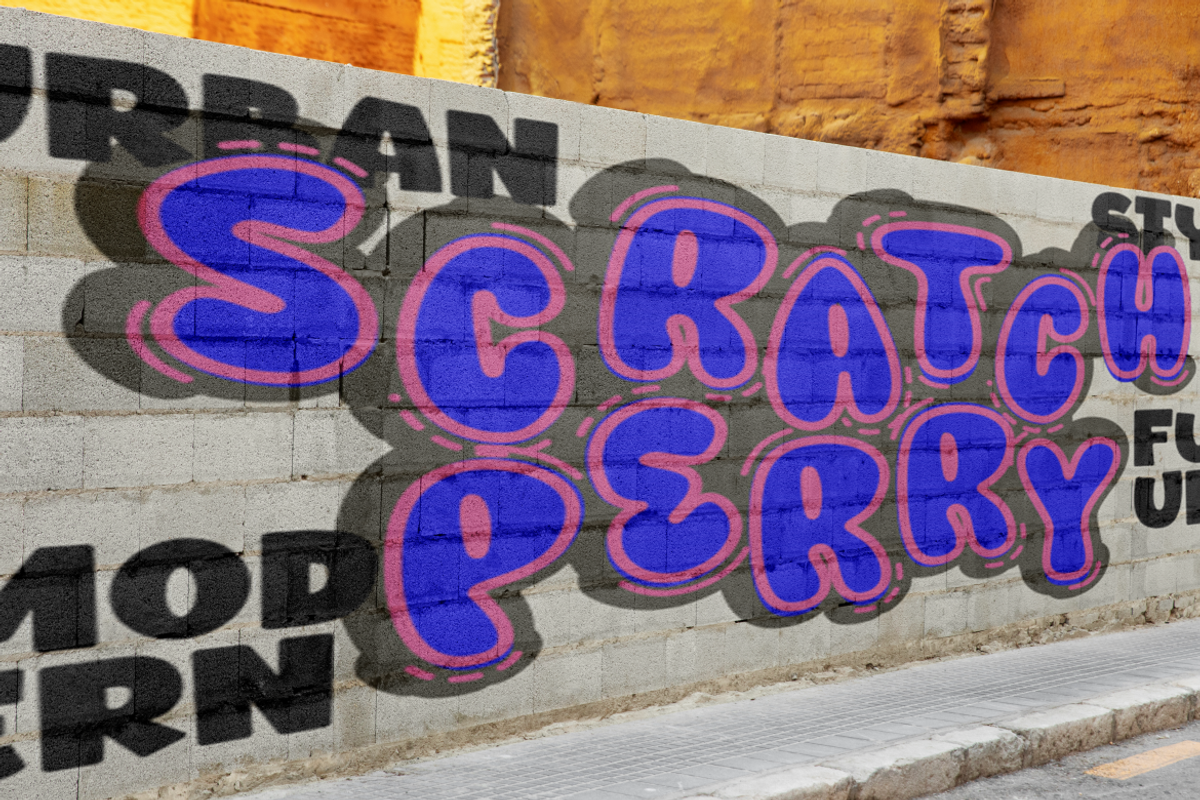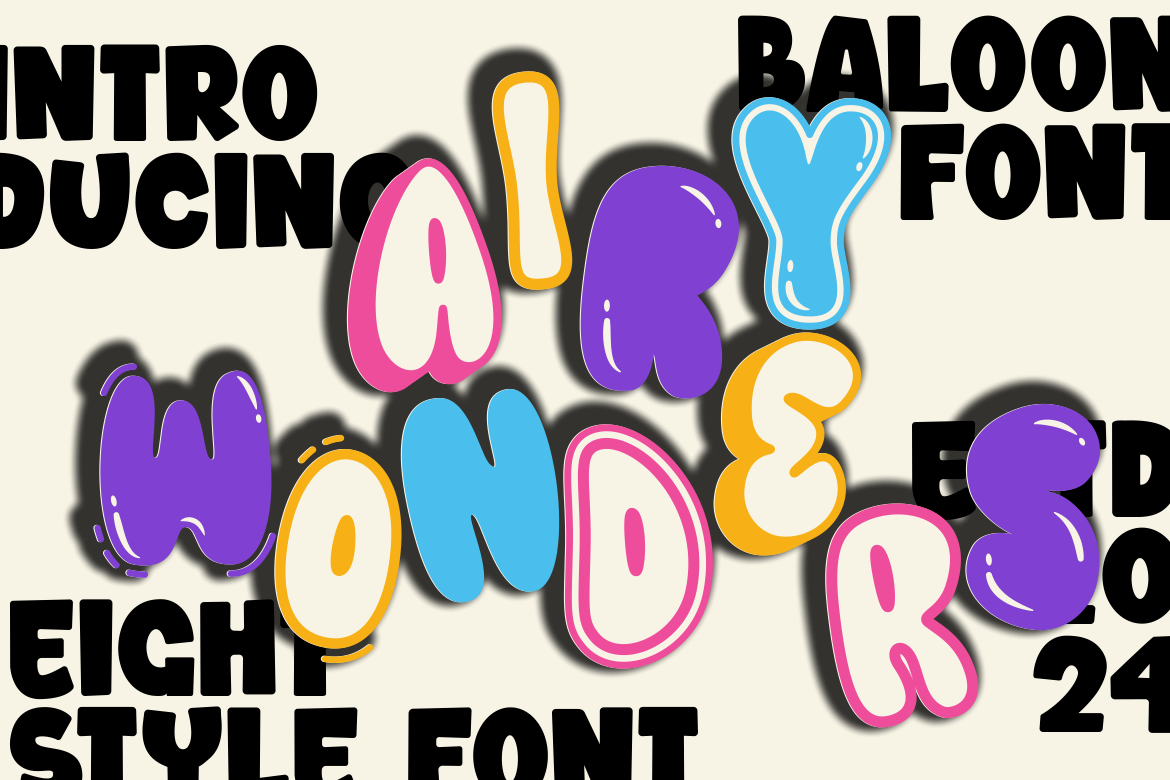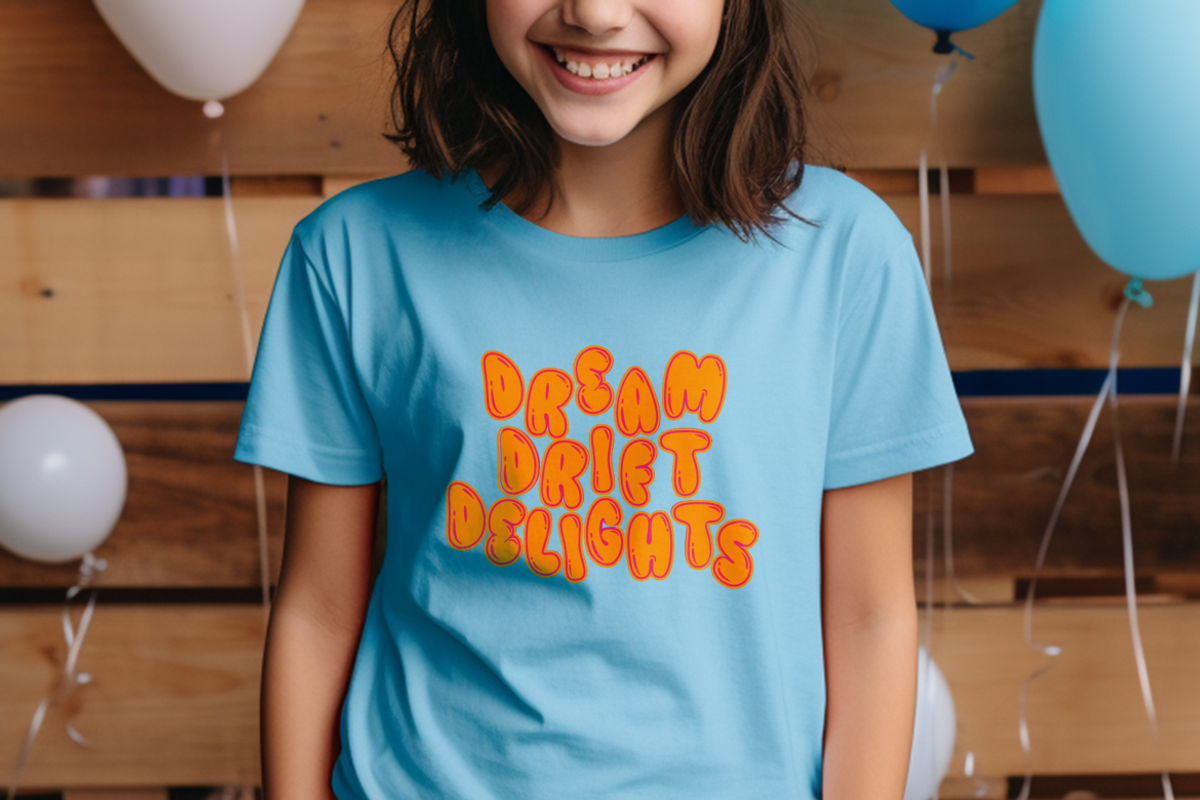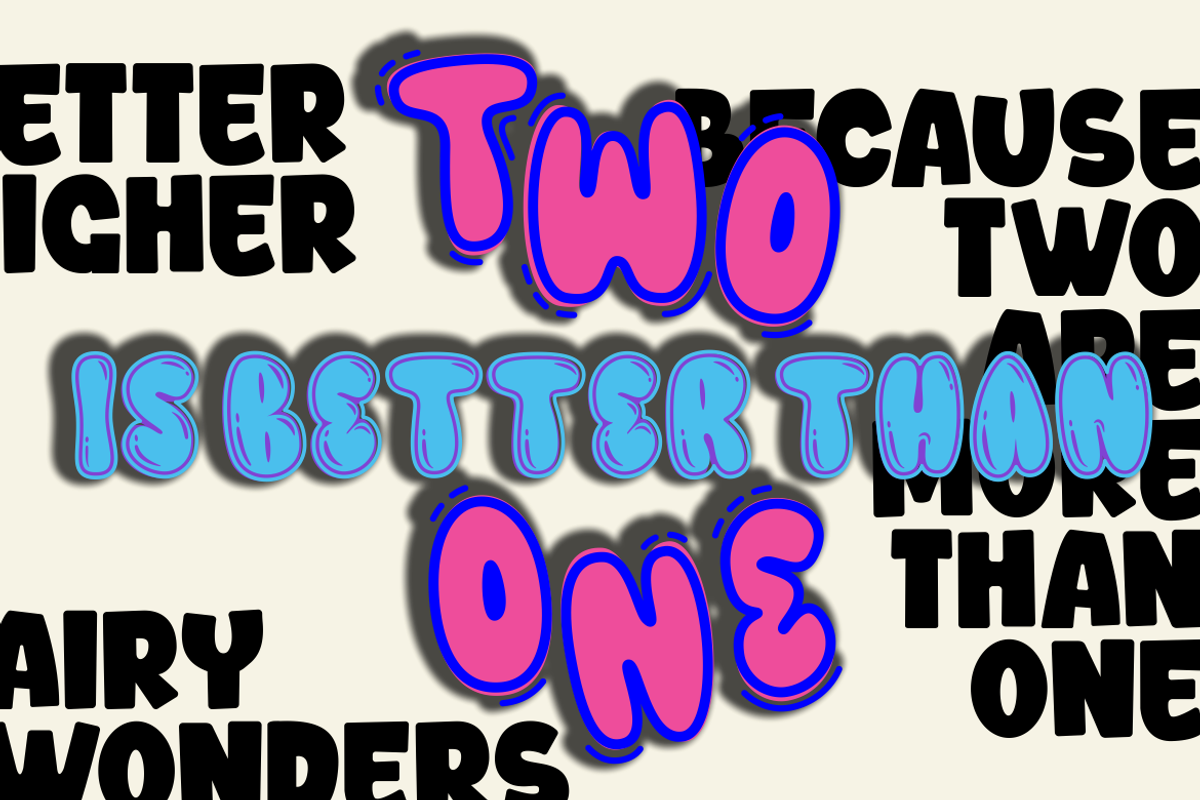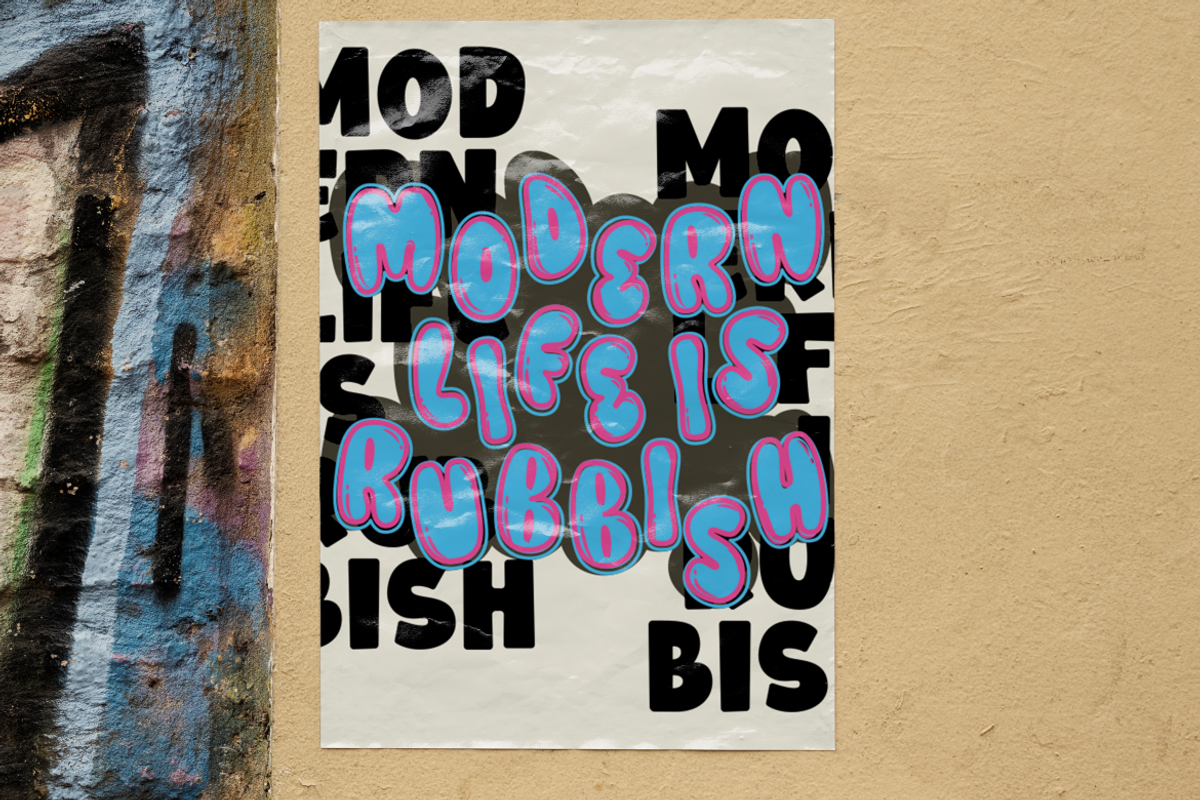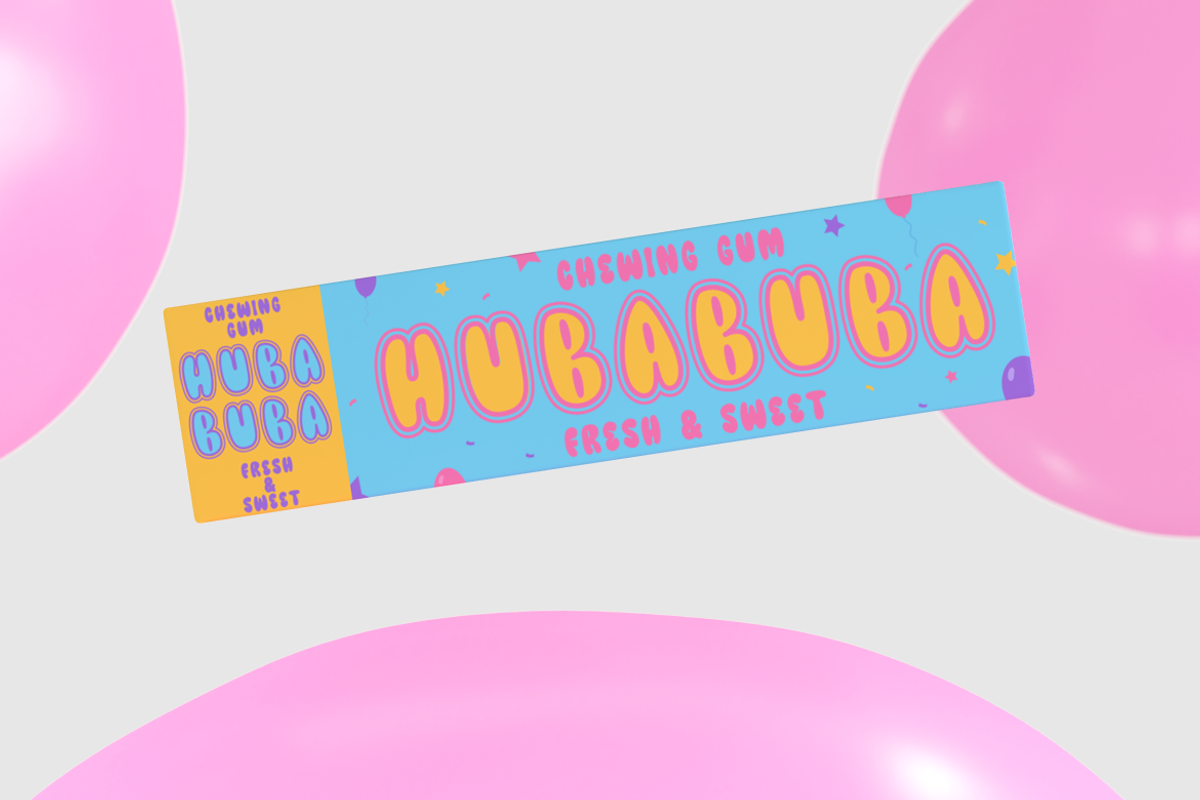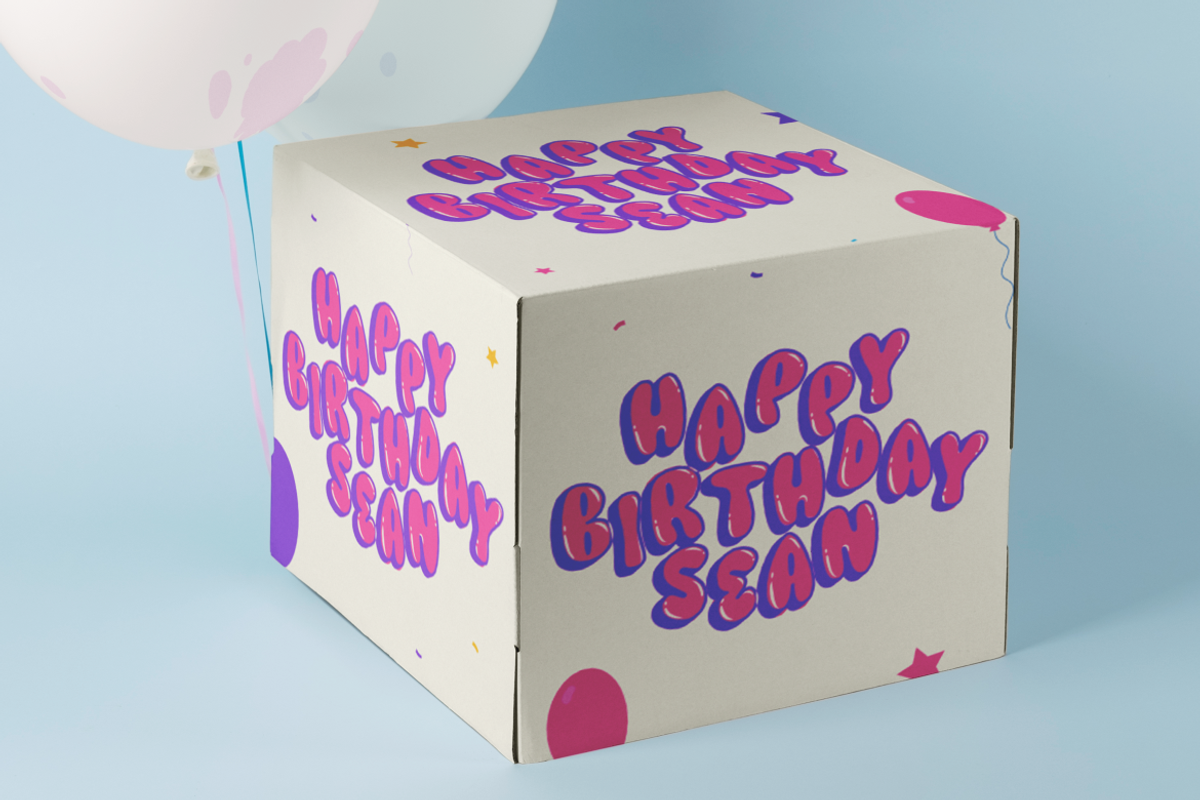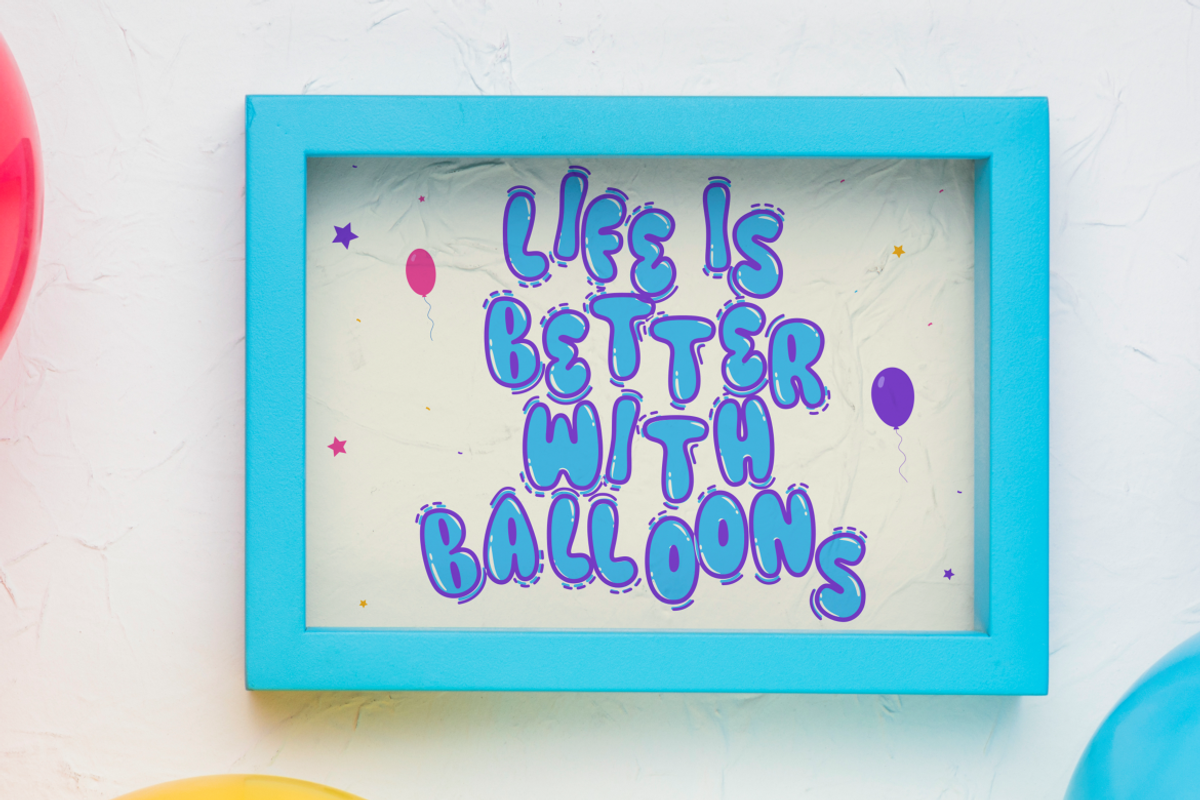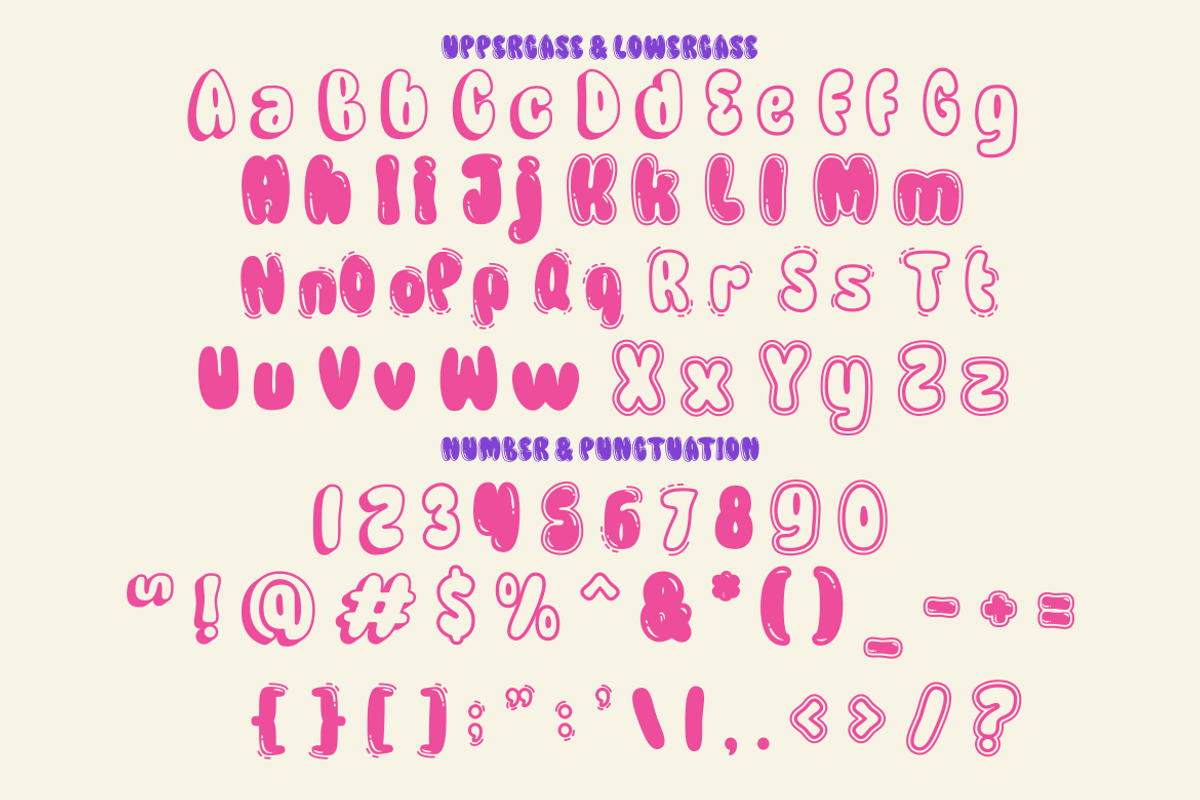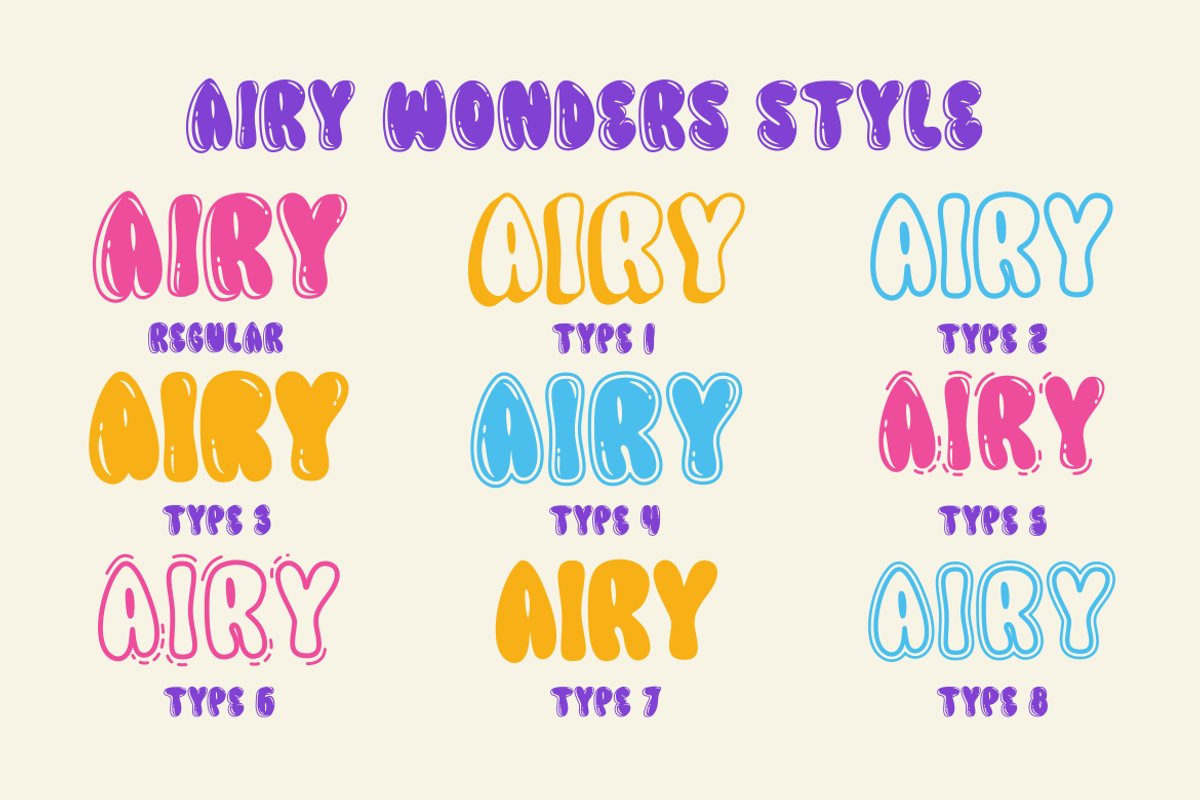
Airy Wonders - Balloon Font
Introducing Airy Wonders - Baloon Font, a whimsical and vibrant typeface that brings the joy of childhood and the spirit of playfulness to any design. With its quirky, balloon-inspired characters, this font is a breath of fresh air in the world of typography. Each letter is crafted with rounded, bold strokes that mimic the buoyant shape of balloons, making it an ideal choice for projects that aim to delight and engage. Whether it’s for crafting, creating eye-catching logos, or adding a touch of fun to packaging, Airy Wonders is versatile and full of personality.
Perfect for a wide range of applications, from children’s books to festive posters, this display font stands out with its unique style and readability. It’s not just a font; it’s a statement of creativity and joy. The Airy Wonders - Baloon Font is designed to make your branding pop, your titles sing, and your invitations soar. It’s a font that ensures your message is wrapped in fun, whether it’s for business cards, stickers, or magazine layouts. Embrace the playful charm of Airy Wonders and let your designs take flight!